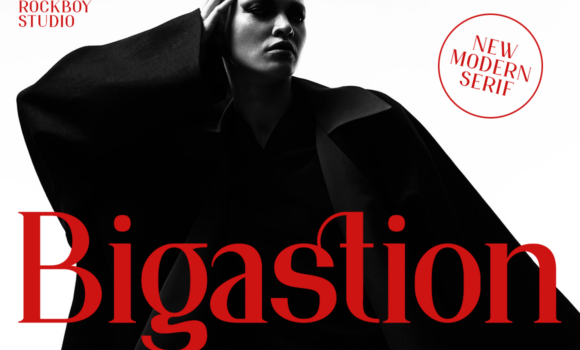
Bigastion Font – Free Download Introduction to Bigastion Font Bigastion is an elegant, thin lettered and distinct serif font. 📸 Preview Gallery 6 images 📌 Product Name Bigastion Font 👤 Author RockboyStudio 📂 Category Explore ⬇️ Download Bigastion Font FREE